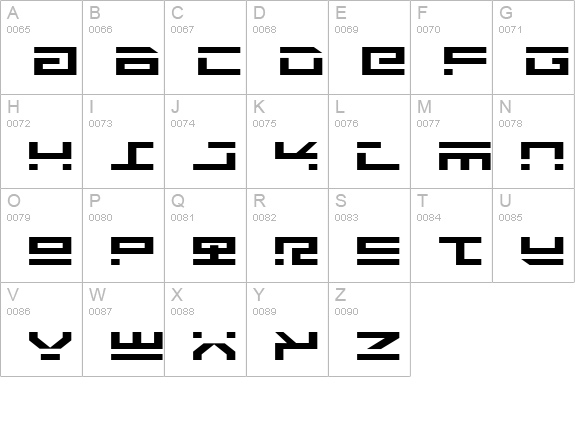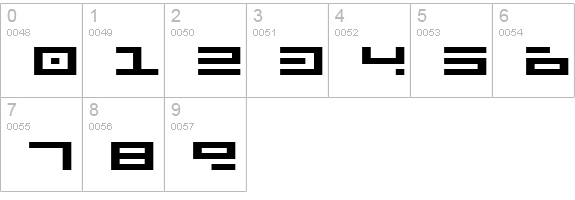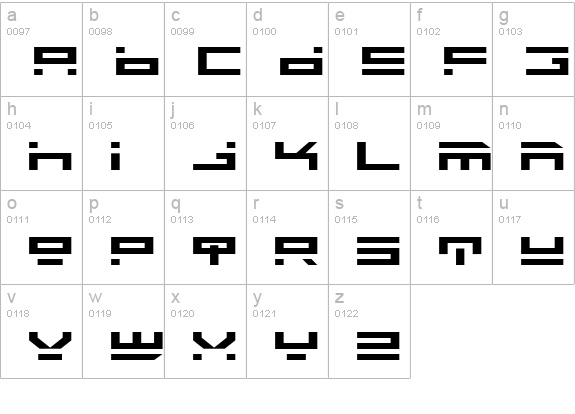
Rocket Type Expanded is a distinctive, extended-width variant in the Rocket typeface family \xE2\x80\x94 well suited to design and typography projects.
Rocket Type Expanded font is a modern and sleek typeface that exudes a sense of energy and dynamism. Its extended letterforms give a unique and bold look to any design project, making it perfect for headlines, posters, and branding materials. The sharp edges and clean lines of this font make it highly versatile and suitable for a wide range of applications. What makes Rocket Type Expanded font even more appealing is that it is available for free download at FontsMarket.com. This means that you can easily access and use this stylish font in your projects without any cost. Whether you're a designer looking to add a touch of edginess to your work or a business owner seeking a modern font for your branding, Rocket Type Expanded font is a fantastic choice that won't break the bank. Download it today and elevate your designs with this eye-catching typeface.